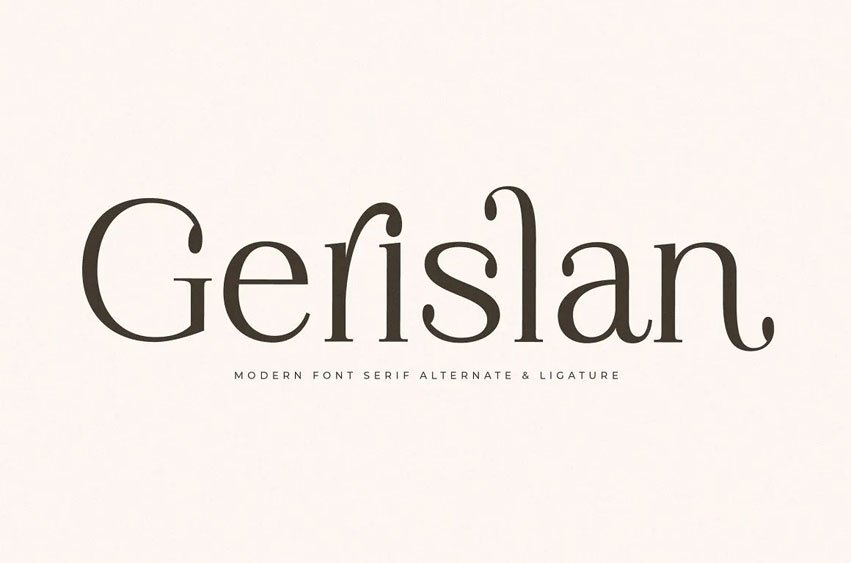
Gerislan Font is a new modern serif font that has own unique style & modern look. This typeface is perfect for an elegant & luxury logo, book or movie title design, fashion brand, magazine, clothes, lettering, quotes, and so much more.